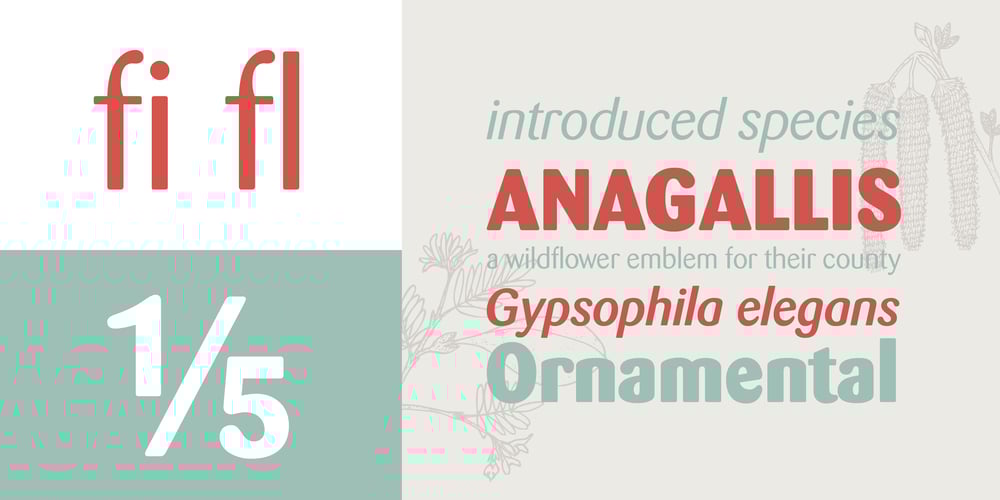
Barmeno
Barmeno font
Barmeno Font Family was designed by Hans Reichel and published by Berthold. Barmeno contains 8 styles and family package options. Hans Reichel designed Barmeno for H. Berthold in 1983. This rounded sans serif has distinctive individual characters but when viewed in bodies of text, it is warm, harmonious and legible. Barmeno often is used for ad copy, and magazine and web layouts. The extra bold weight is especially good for attention-grabbing headlines.